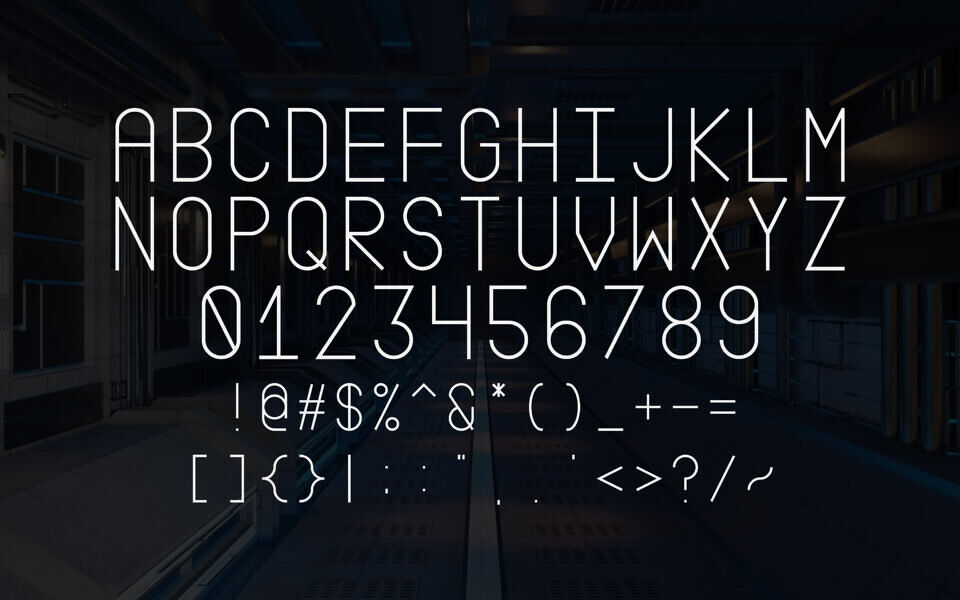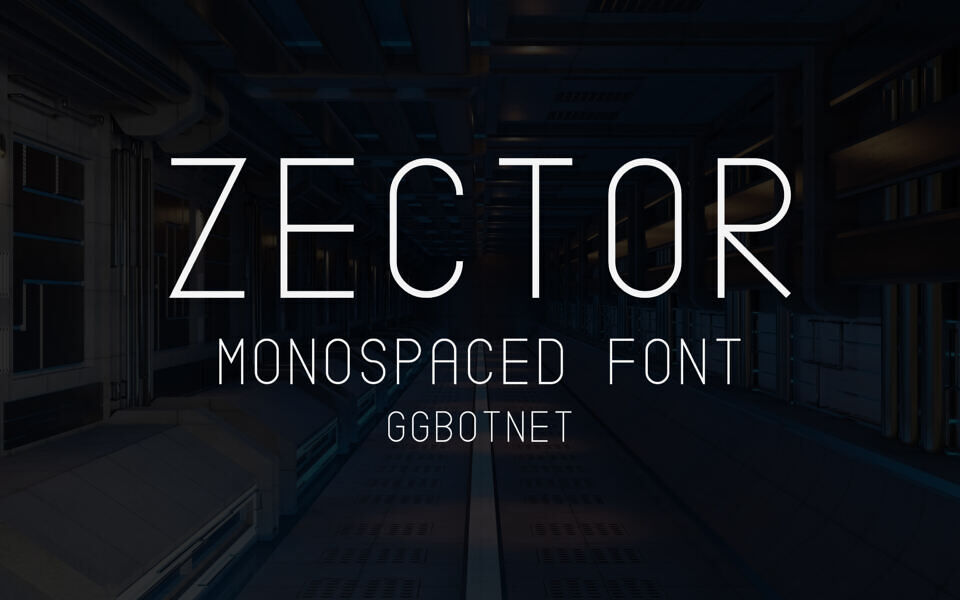
Zector is a monospaced, all-uppercase font by GGBotNet, featuring 1,016 glyphs and support for 135 languages. Its clean, geometric design suits modern and minimalist projects.